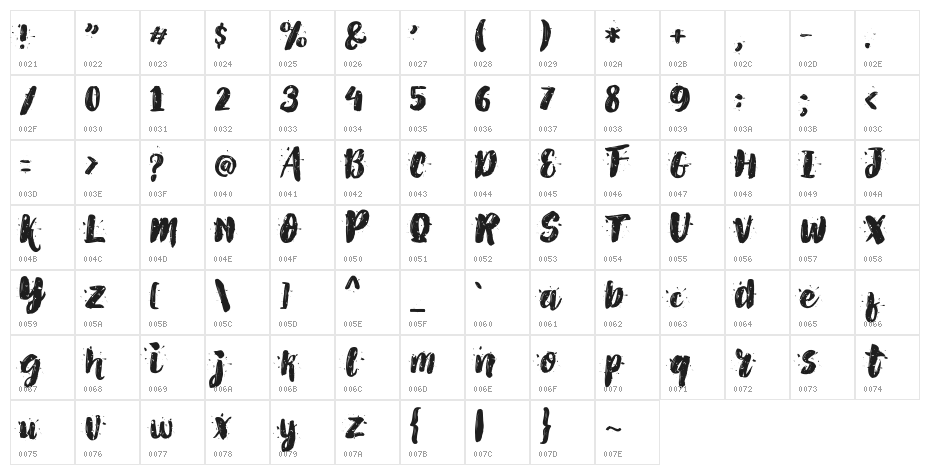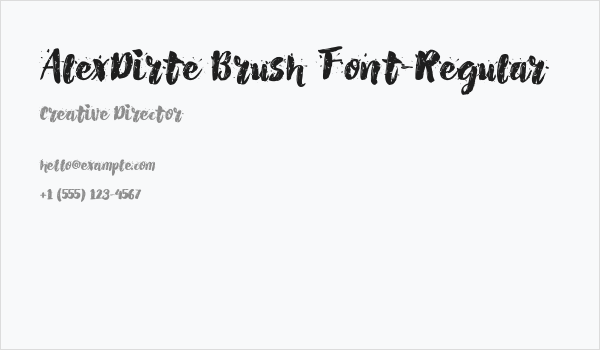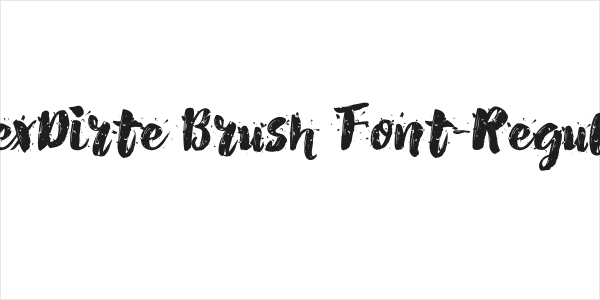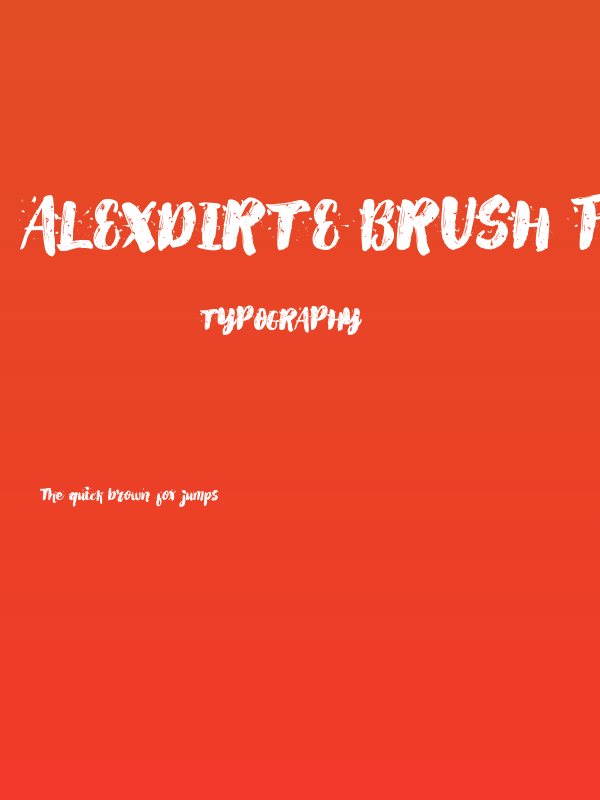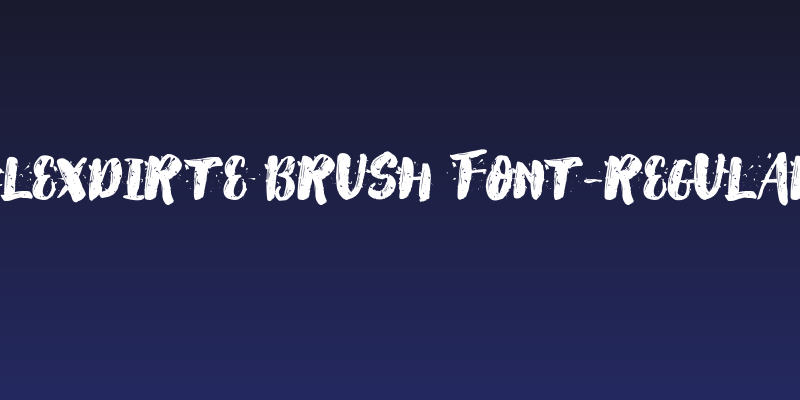
AlexDirte Brush Font-Regular Font
AlexDirte Brush Font-Regular Description
This brush-style font exudes a bold and expressive character, with each letter appearing as if it has been painted with a thick brush. The strokes are uneven and dynamic, giving a sense of movement and energy. The texture is rough, with splatters and irregularities that add to its handcrafted appearance. The uppercase and lowercase letters maintain a consistent style, while the numbers and special characters complement the overall aesthetic. This font is perfect for projects that require a raw, artistic touch.
| Proposed Projects | Ideal for posters, album covers, branding, and any creative project that benefits from a bold, artistic touch. |